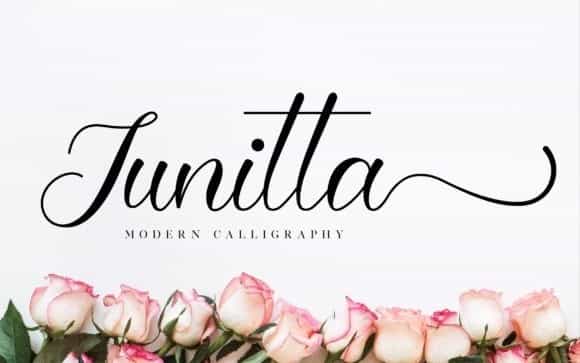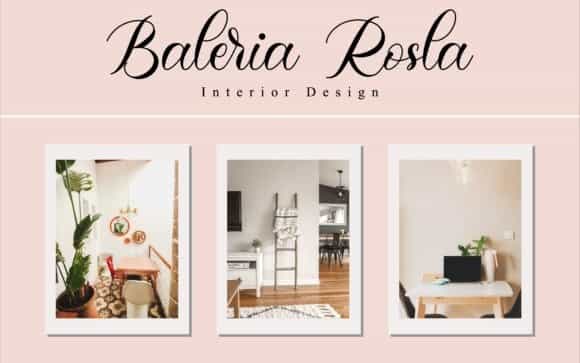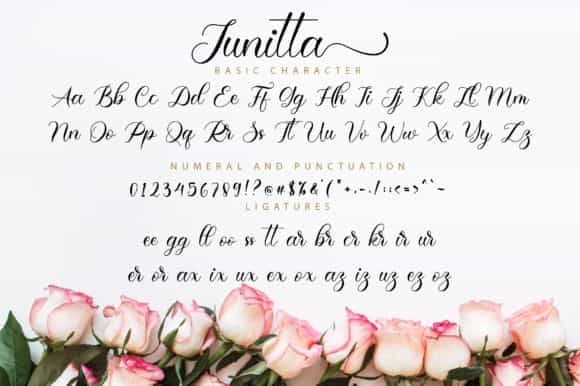
Junitta is a very pretty handwriting font. It has an upscale, chic and contemporary look which can be used for logos, branding, invitations, stationery, wedding designs as well as social media posts and every other design that requires a handwritten touch.